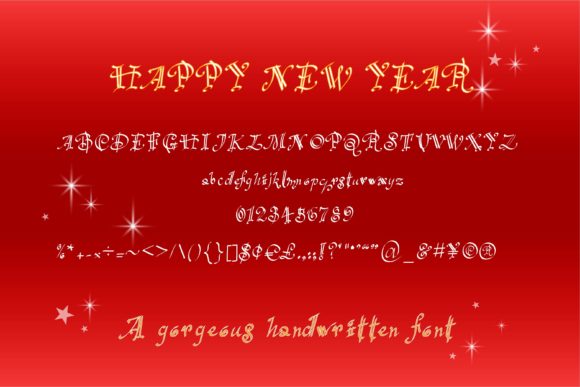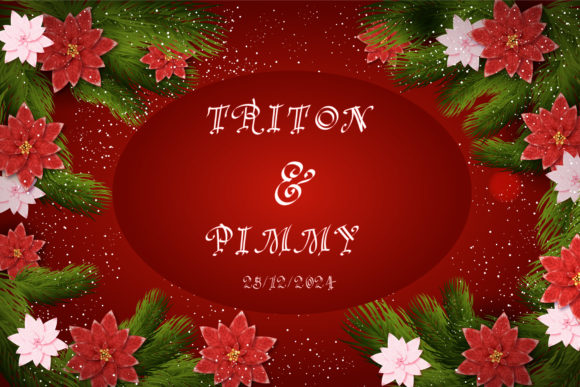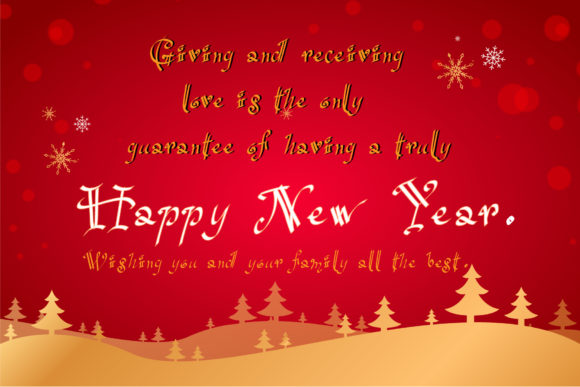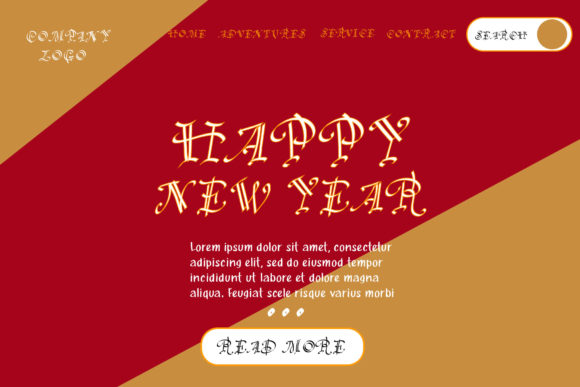
Happy New Year Font: Elevate Your Holiday Crafts with Elegance
As the festive season approaches, designers and crafters are on the lookout for the perfect typography to add a touch of elegance to their holiday-themed projects. If you’re searching for a font that exudes sophistication and romance, look no further than the Happy New Year Font. This exquisite, rich, and elegant handwritten font is ideal for creating stunning greeting cards, invitations, and crafting projects that require a romantic touch.
What Makes Happy New Year Font Special?
The Happy New Year Font is a unique and beautiful typeface that is sure to make your holiday projects stand out. Its elegant and refined design makes it perfect for a variety of applications, from traditional greeting cards to modern digital designs. The font’s handwritten style gives it a personal and intimate feel, making it ideal for projects that require a touch of warmth and personality.
One of the key features of the Happy New Year Font is its versatility. It can be used for a wide range of projects, including:
- Holiday-themed greeting cards and invitations
- Crafting projects, such as scrapbooking and journaling
- Digital designs, including social media graphics and blog posts
- Stationery and gift tags
Why Choose Happy New Year Font for Your Holiday Projects?
There are many reasons why the Happy New Year Font is the perfect choice for your holiday projects. Here are just a few:
- Elegance and sophistication: The Happy New Year Font is a beautifully designed typeface that adds a touch of elegance and sophistication to any project.
- Romantic touch: The font’s handwritten style gives it a romantic and intimate feel, making it perfect for projects that require a personal touch.
- Versatility: The Happy New Year Font can be used for a wide range of projects, from traditional greeting cards to modern digital designs.
Tips for Using Happy New Year Font in Your Holiday Projects
Here are a few tips for using the Happy New Year Font in your holiday projects:
- Pair it with complementary fonts: The Happy New Year Font looks great when paired with complementary fonts, such as serif or sans-serif fonts.
- Use it for headings and titles: The font’s elegant design makes it perfect for headings and titles, adding a touch of sophistication to your projects.
- Experiment with colors and textures: The Happy New Year Font looks great in a variety of colors and textures, so don’t be afraid to experiment and find the perfect combination for your project.
If you’re looking for a font that adds a touch of elegance and romance to your holiday projects, look no further than the Happy New Year Font. This beautiful, rich, and elegant handwritten font is perfect for designers and crafters who want to create stunning holiday-themed projects that stand out from the crowd. With its versatility, ease of use, and elegant design, the Happy New Year Font is sure to become a favorite in your font collection.